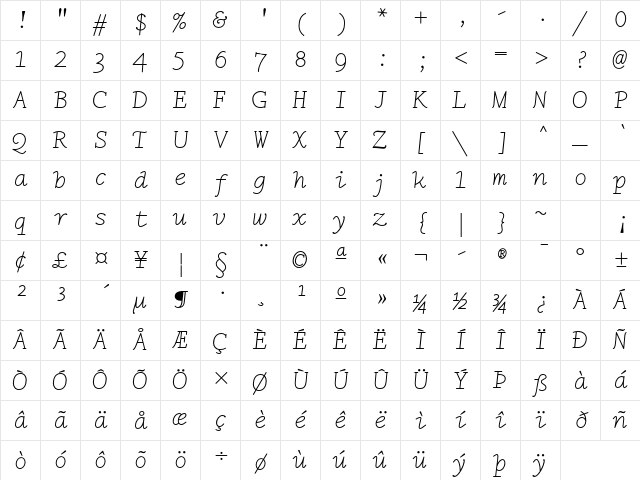
Complete LTC Remington Typewriter Pro Italic glyph index. Displaying only characters natively supported by LTC Remington Typewriter Pro Italic font.
LTC Remington Typewriter Pro uses fixed-width spacing throughout, giving it the structured, systematic character associated with coding environments and technical documentation. The slanted form adds forward momentum and visual energy.